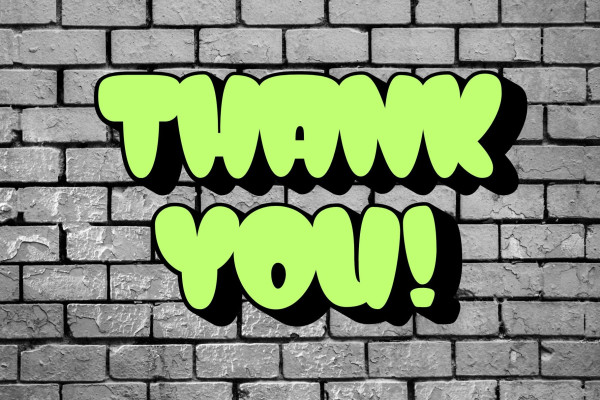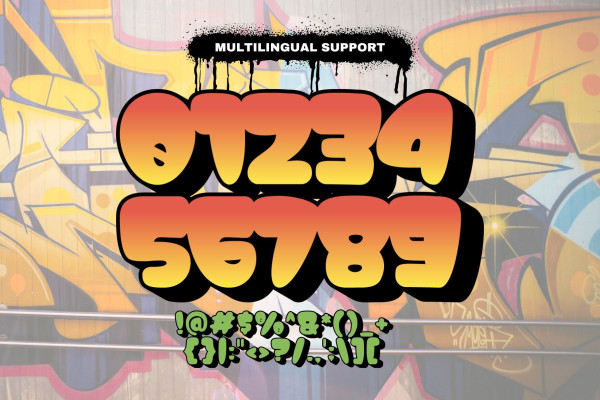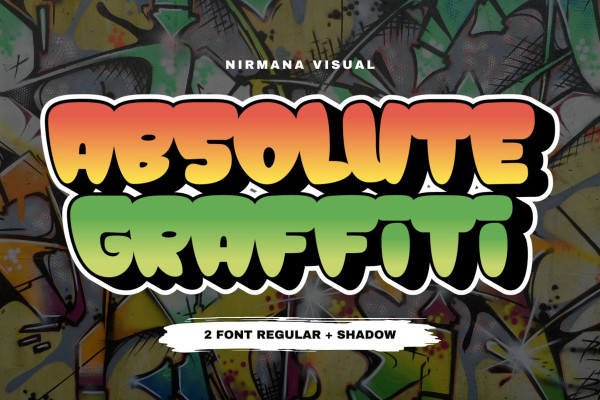
Absolute Graffiti Font
Absolute Graffiti Font offers beautiful typographic harmony for a diversity of design projects, including logos & branding, social media posts, advertisements & product designs.